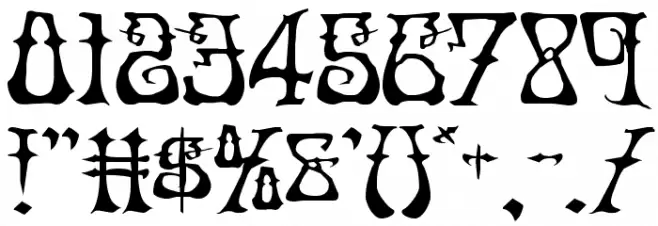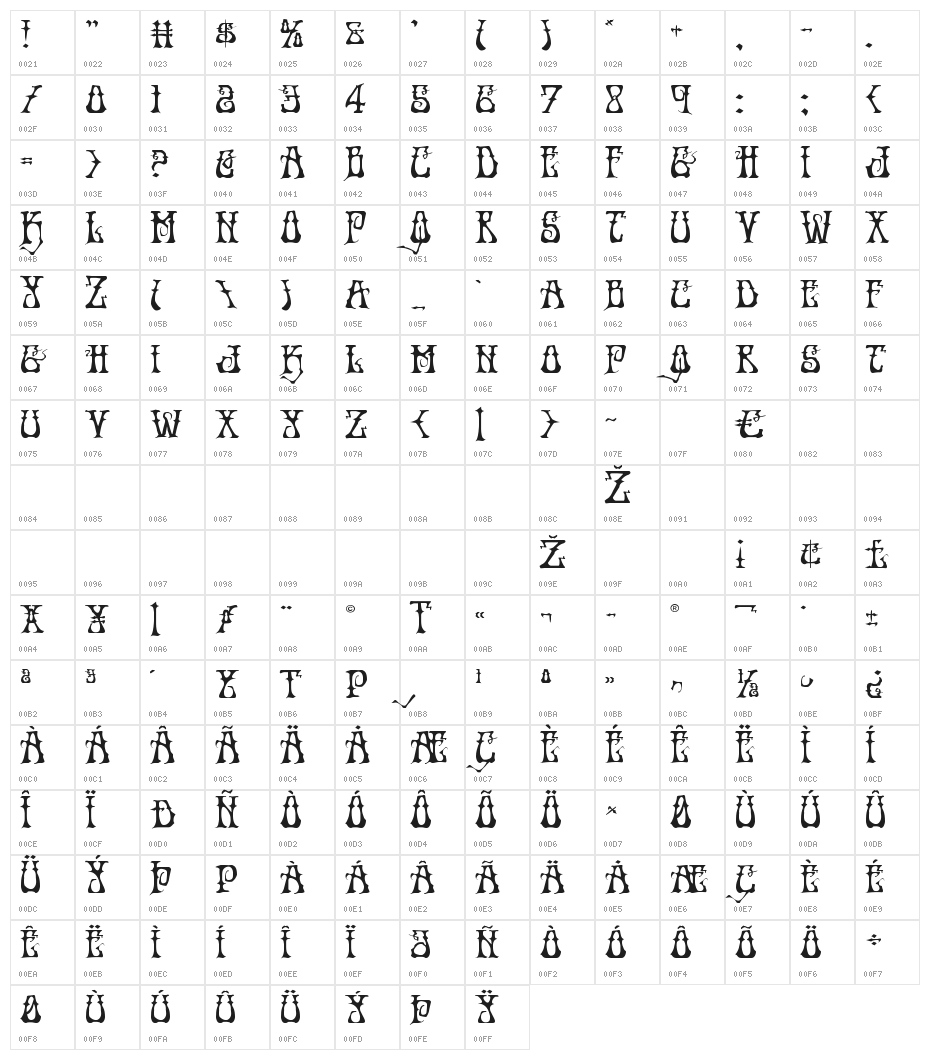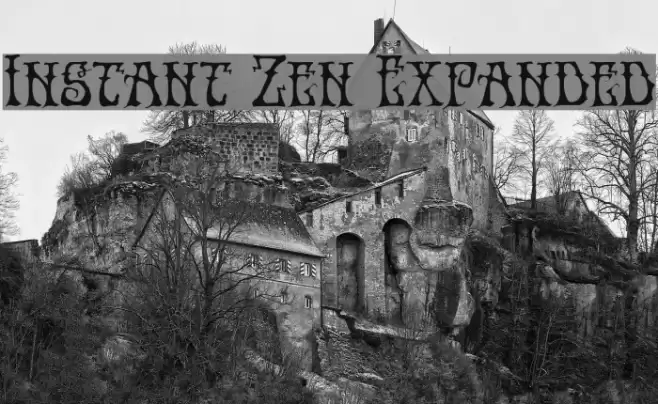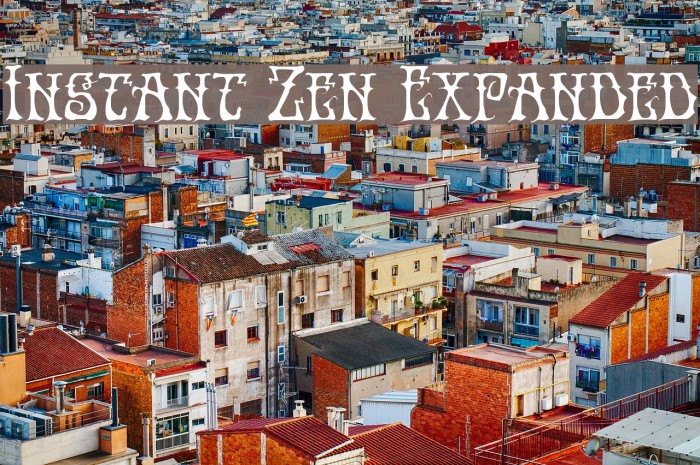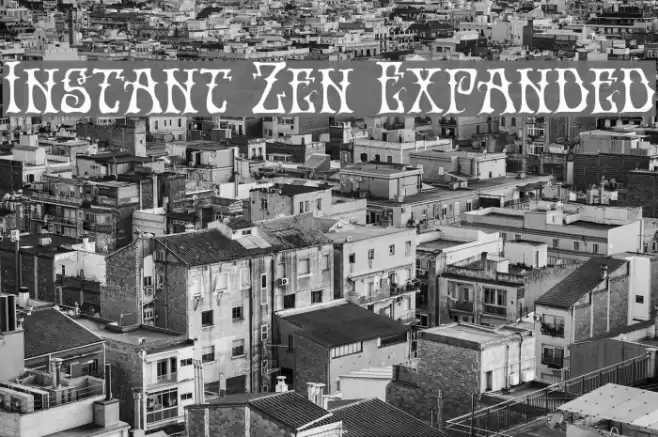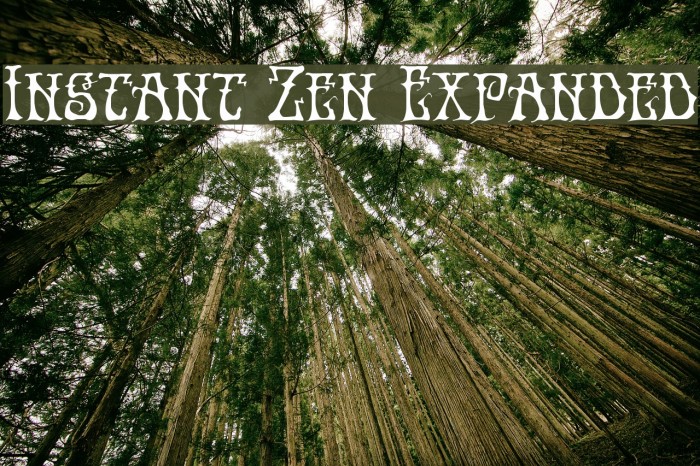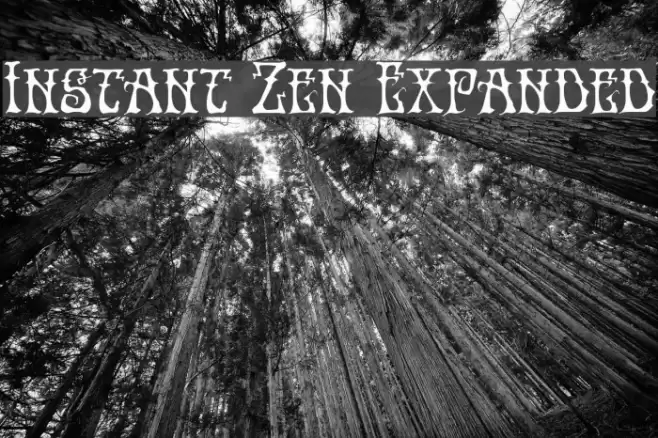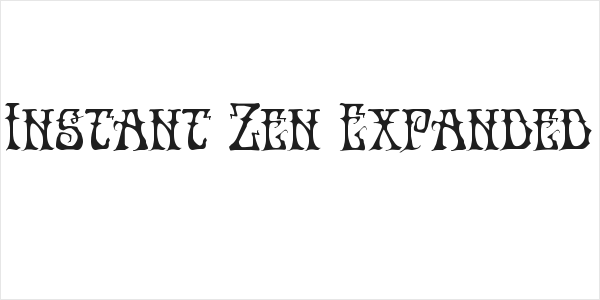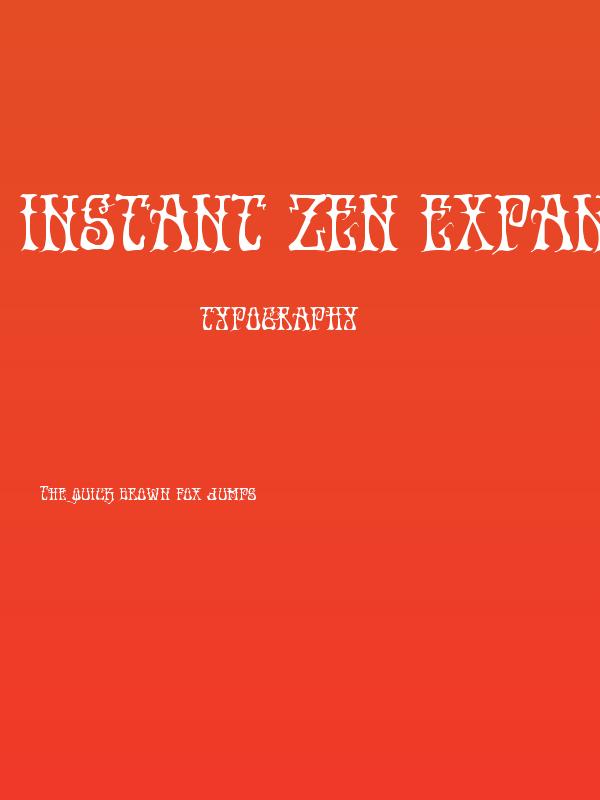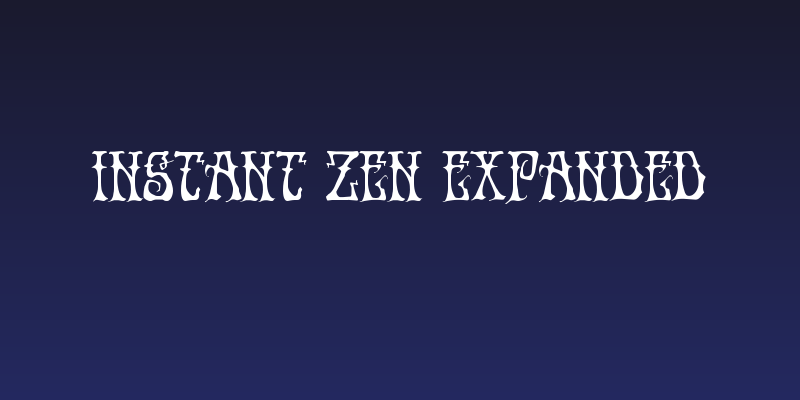
Instant Zen Expanded Font
Instant Zen Expanded Description
This font features a bold and dramatic style with intricate, ornamental details that give it a unique and artistic flair. The characters are designed with sharp edges and elaborate flourishes, creating a sense of movement and energy. The uppercase and lowercase letters maintain a consistent style, with each character exhibiting a distinct personality. The numbers and special characters are equally ornate, making this font suitable for creative and decorative applications. Its bold presence and high contrast make it stand out, while the detailed design elements add a touch of elegance and sophistication.
| Proposed Projects | Ideal for use in posters, album covers, branding, and any project requiring a striking and artistic typeface. |